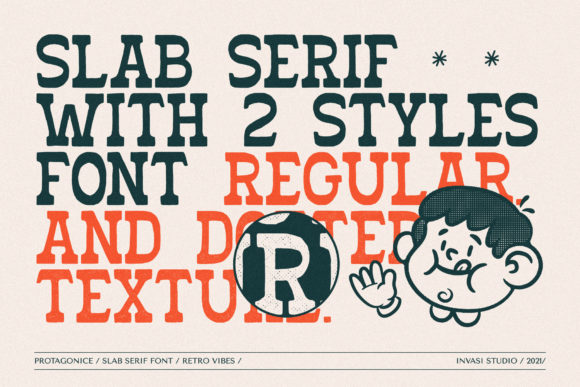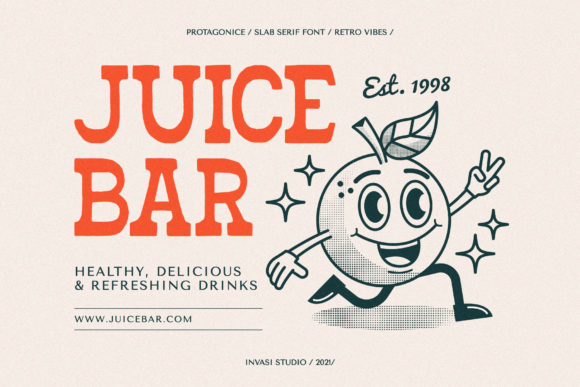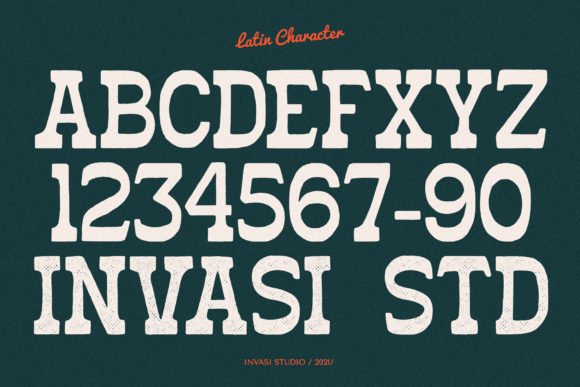
Introduction to Prota Gonice Font
Prota Gonice is a retro and cool slab serif font.
It is imposing and features uniquely shaped letters, and as a result, it will easily match a wide range of creations that require a distinct touch .